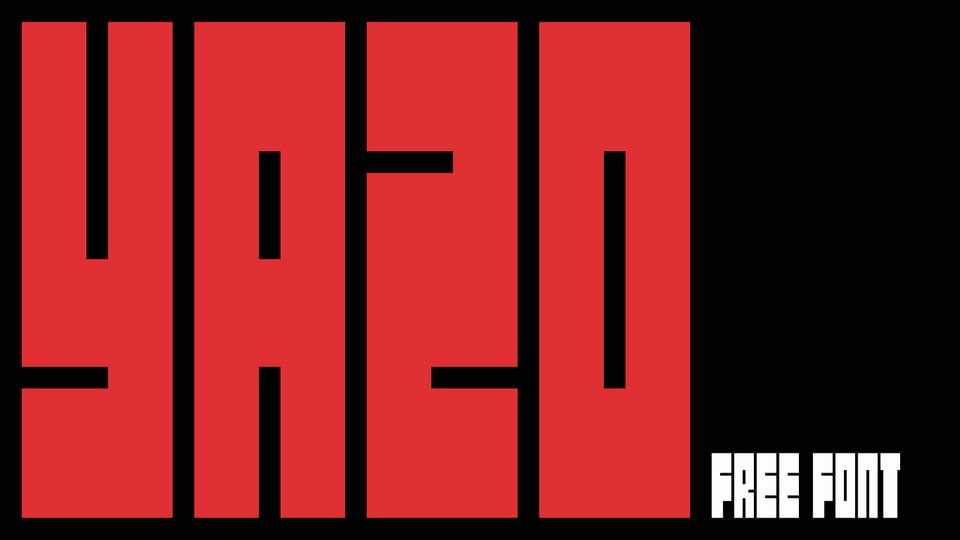
Download Yazo font, a display typeface that’s all about bold, geometric simplicity with a blocky, rectangular edge. Yazo font is designed for projects that demand a clear and no-nonsense design with a touch of contemporary aesthetics.